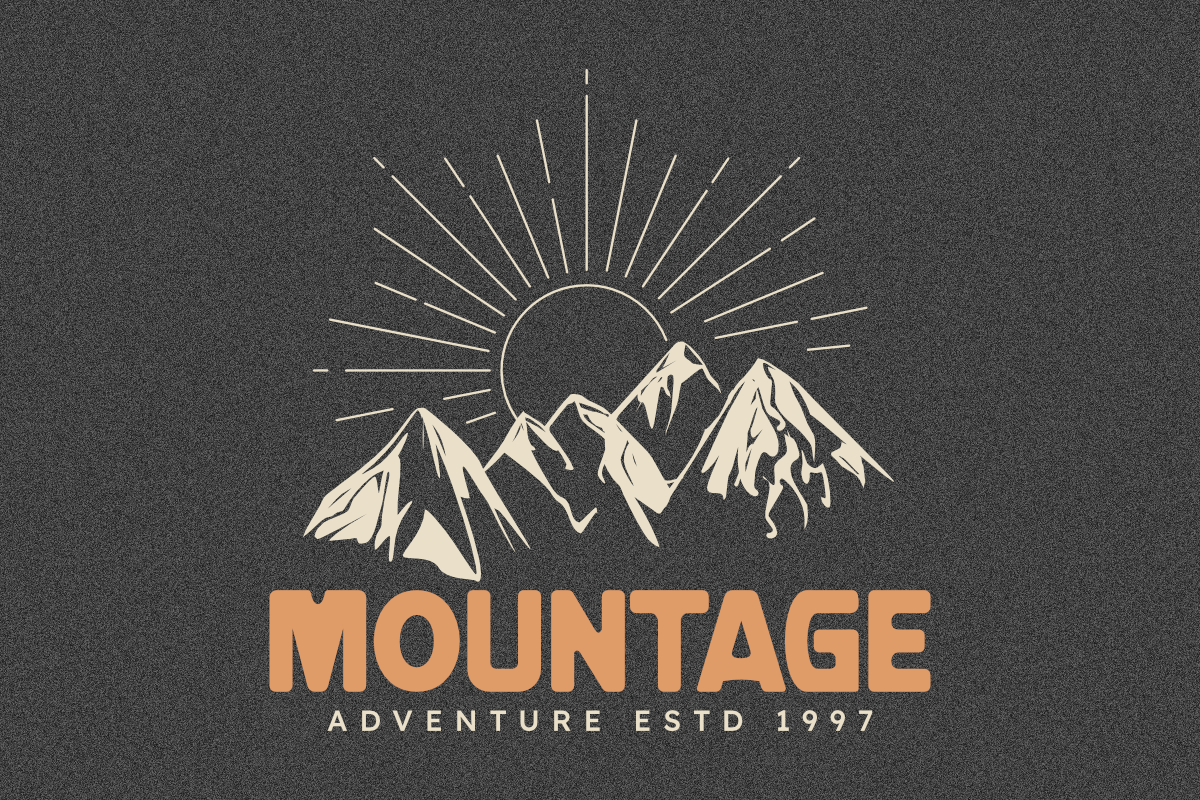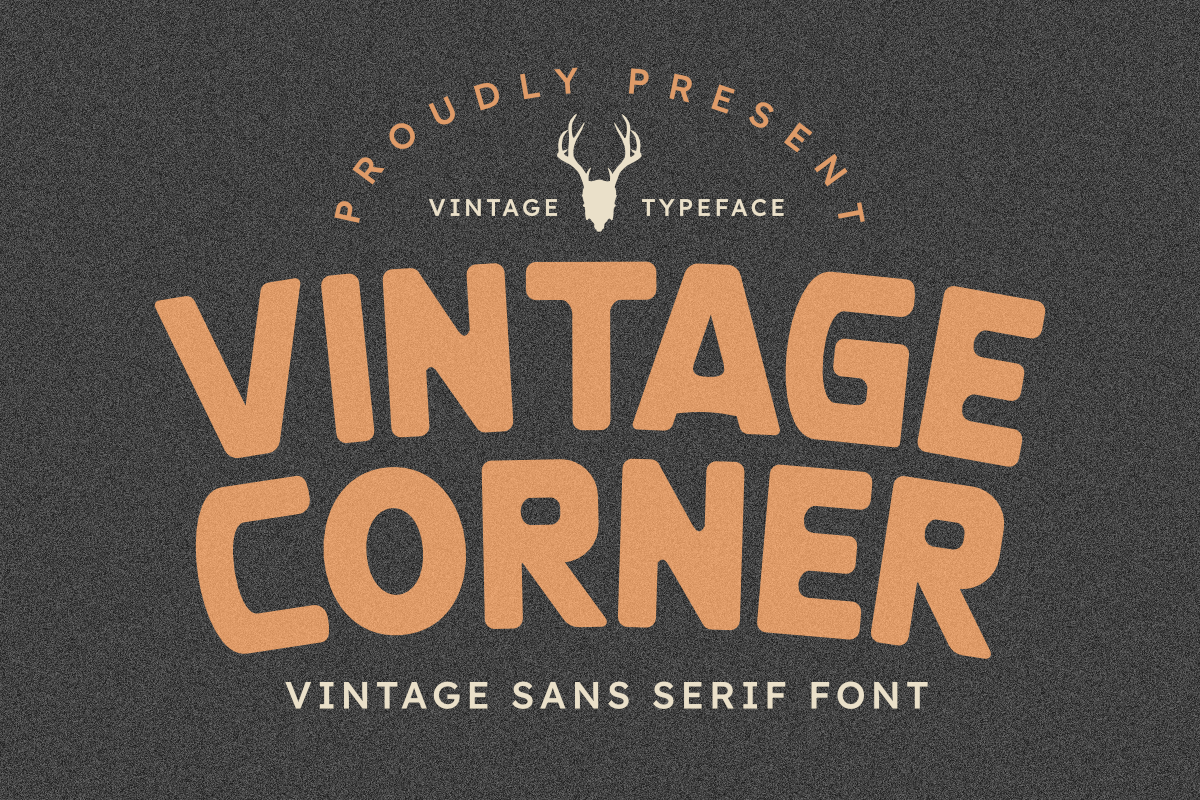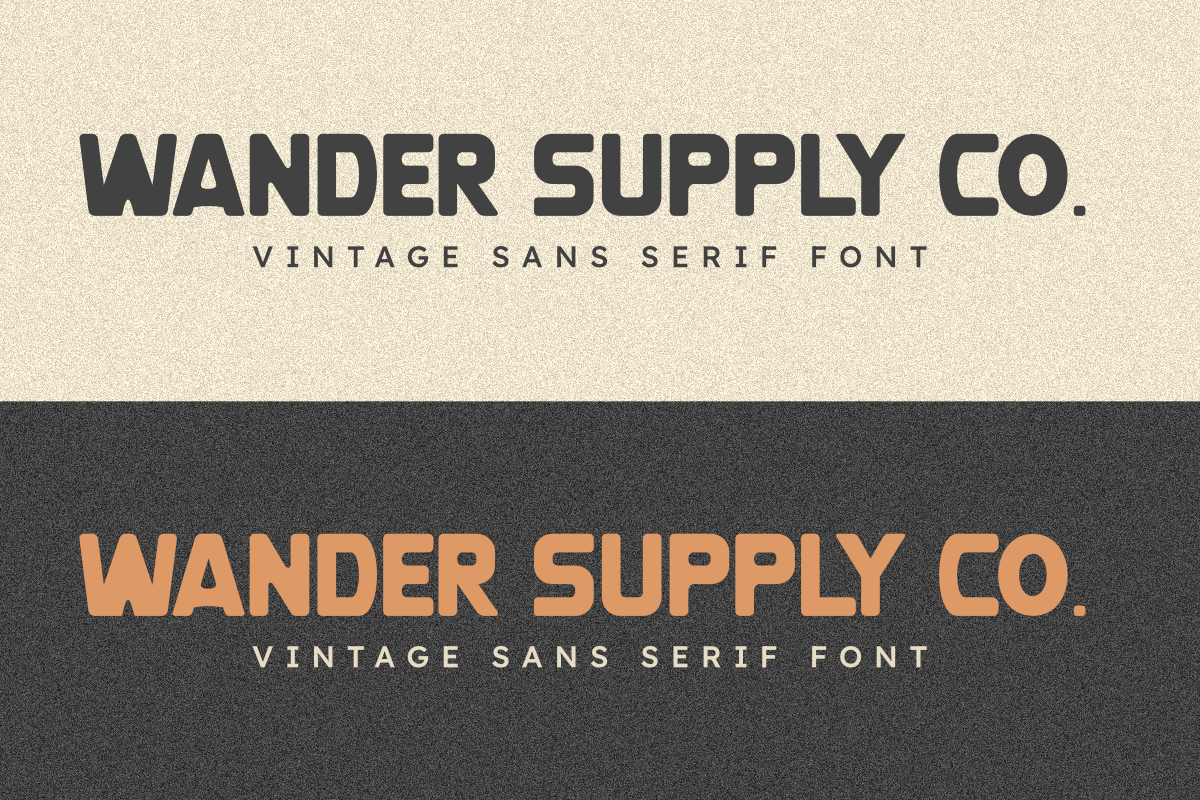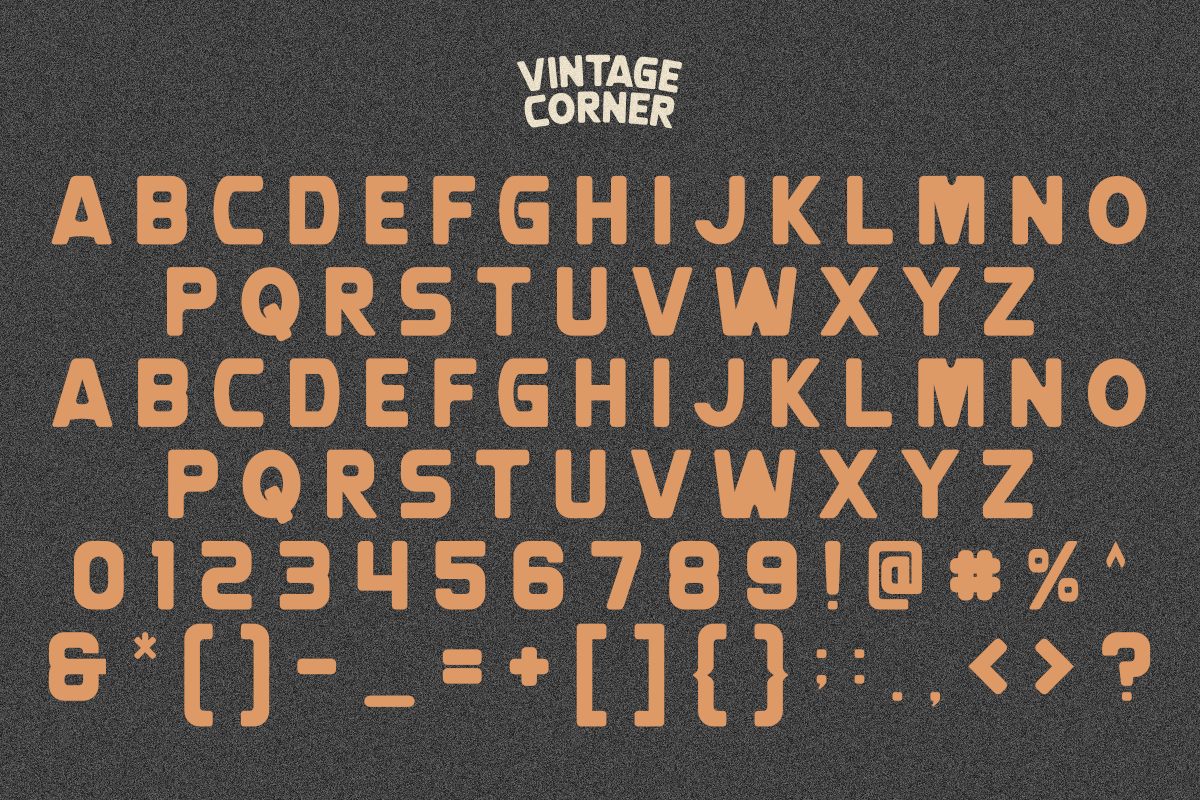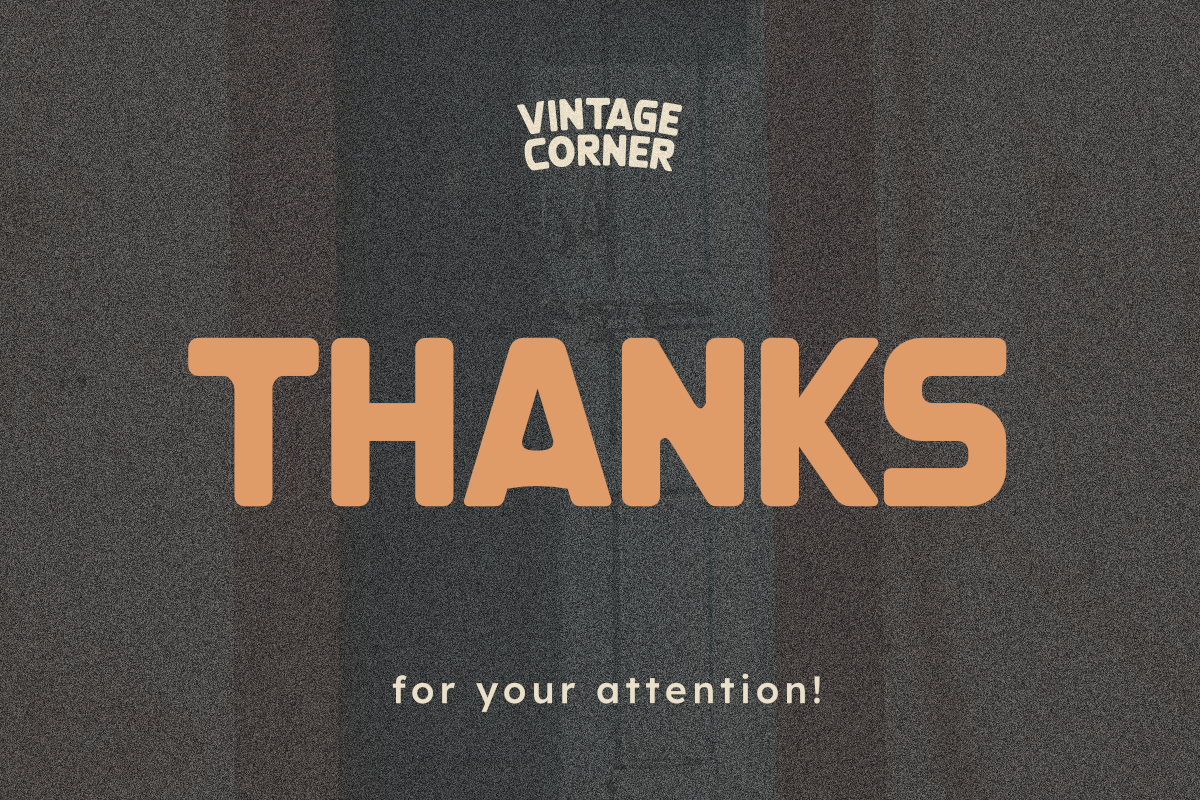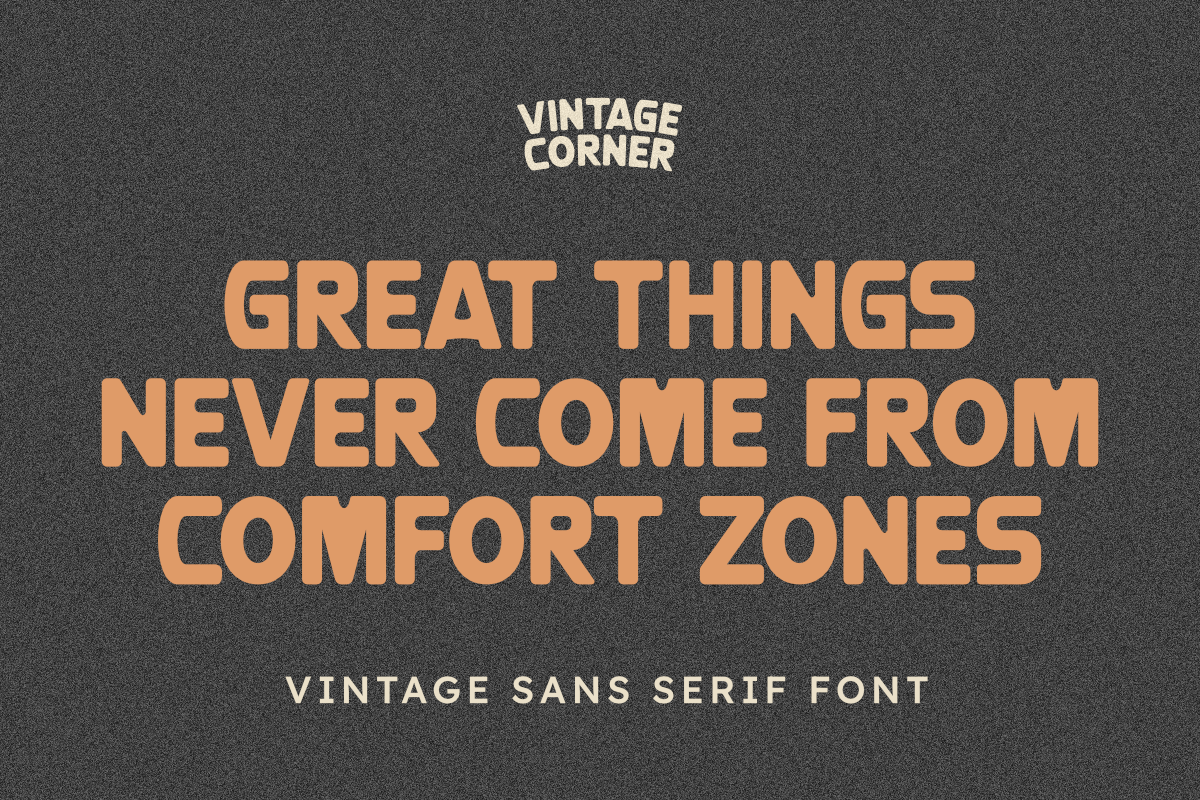
Vintage Corner - Vintage Sport Font
Add a touch of warm nostalgia to your designs with Vintage Corner, a charming vintage sans serif font. This typeface features rounded edges and a friendly, approachable aesthetic, reminiscent of classic signage and retro branding. Its smooth curves and inviting character make it a wonderful choice for logos, packaging, posters, social media graphics, and any project seeking a genuine vintage feel with a contemporary twist. Bring a comfortable and familiar vibe to your creative work with Vintage Corner.